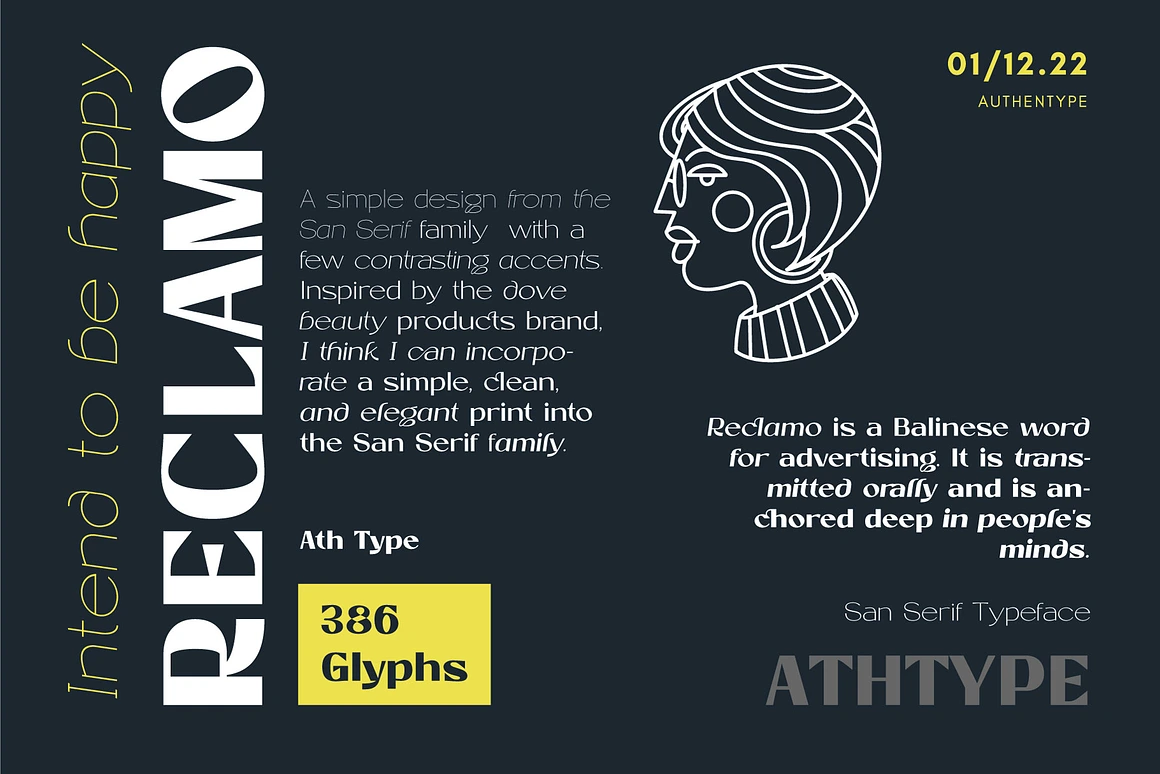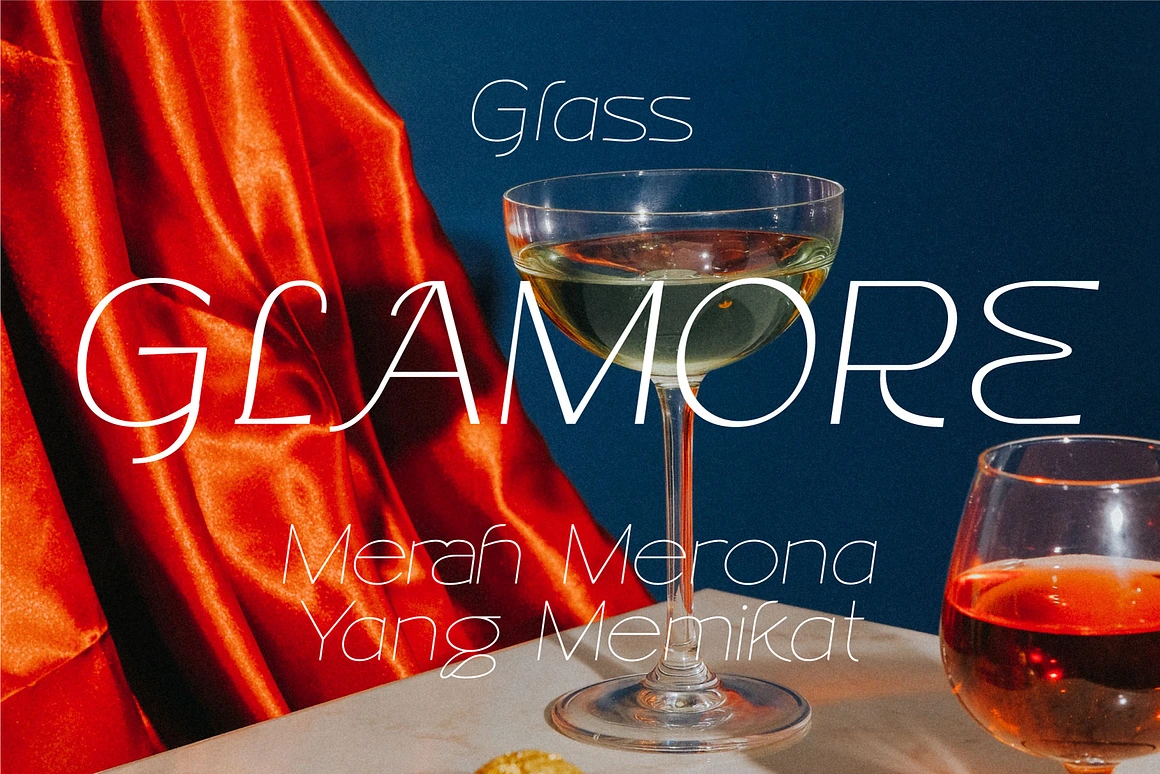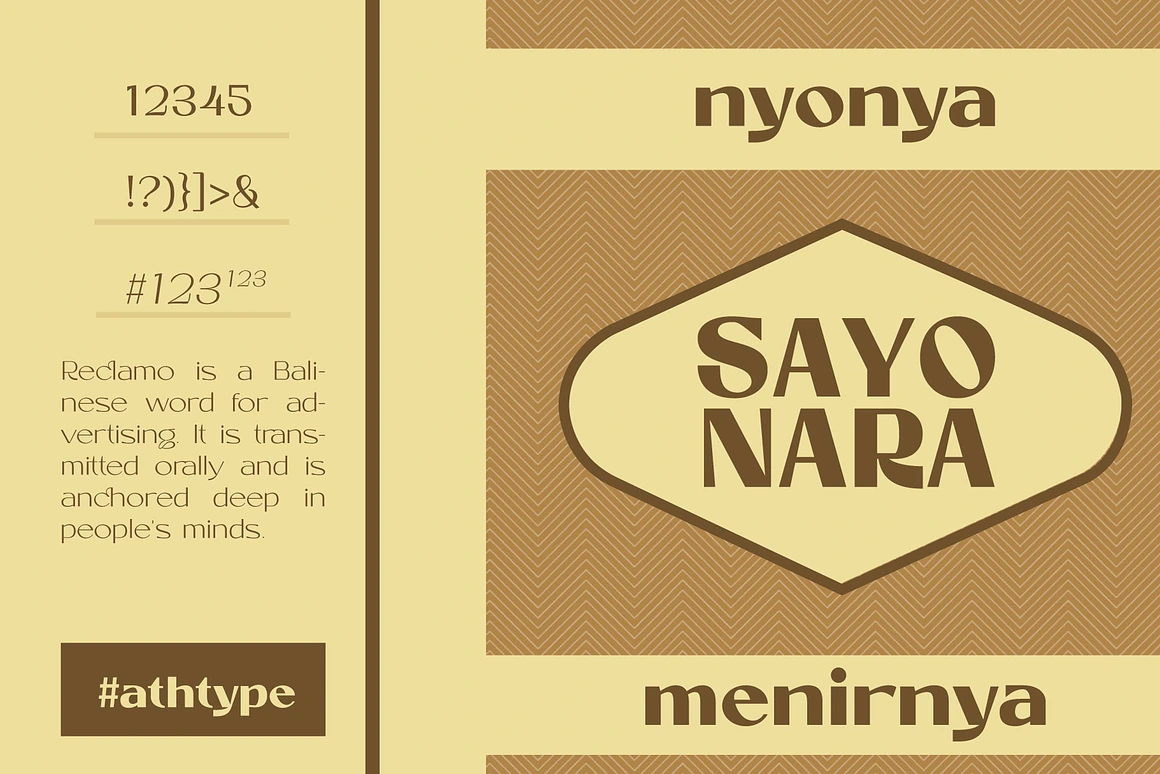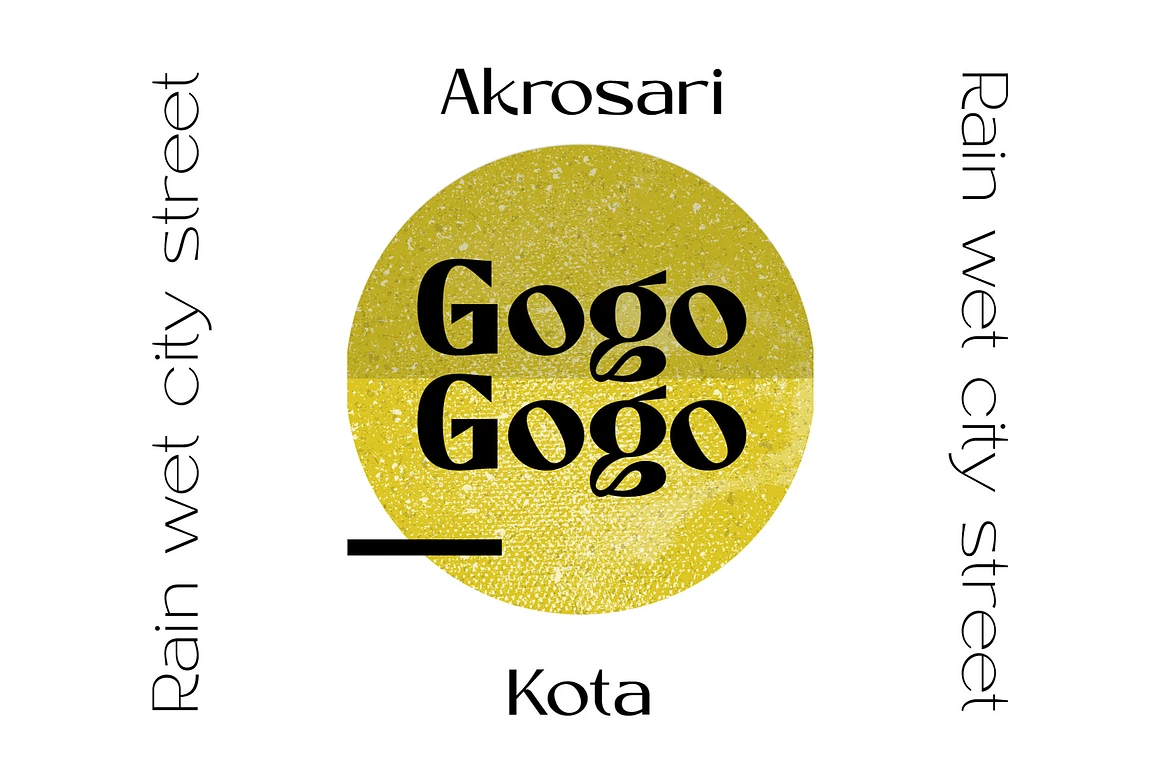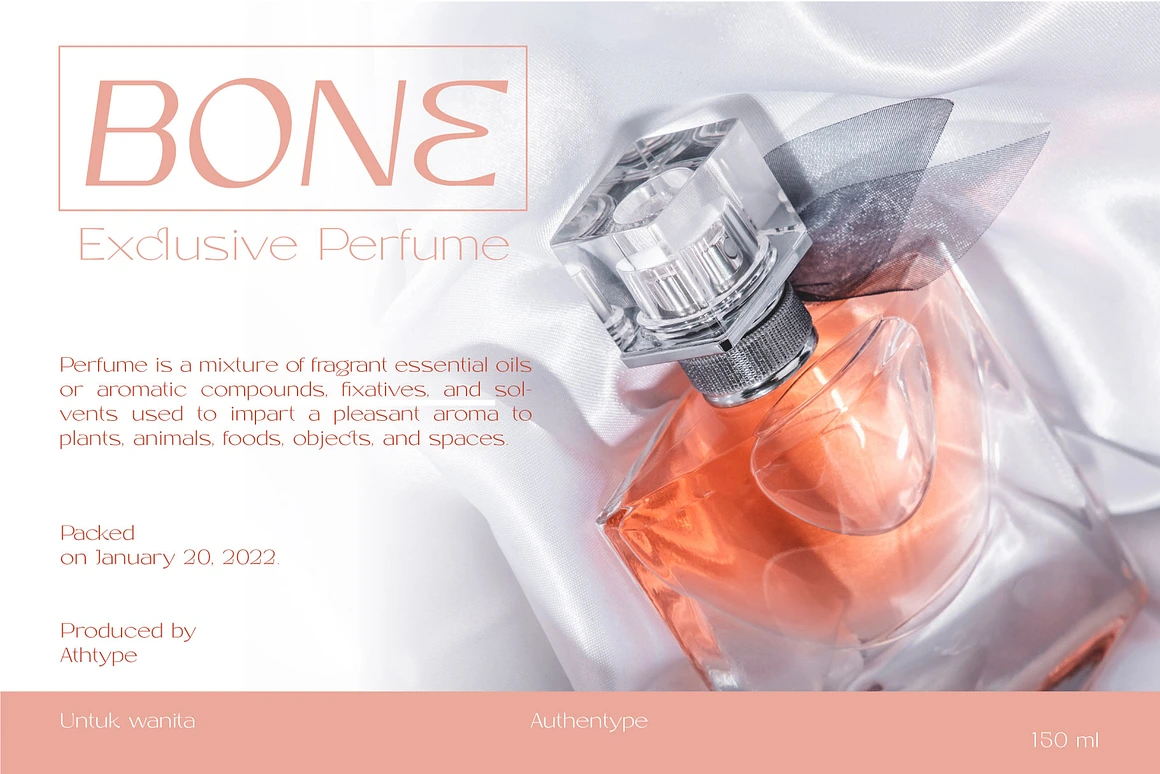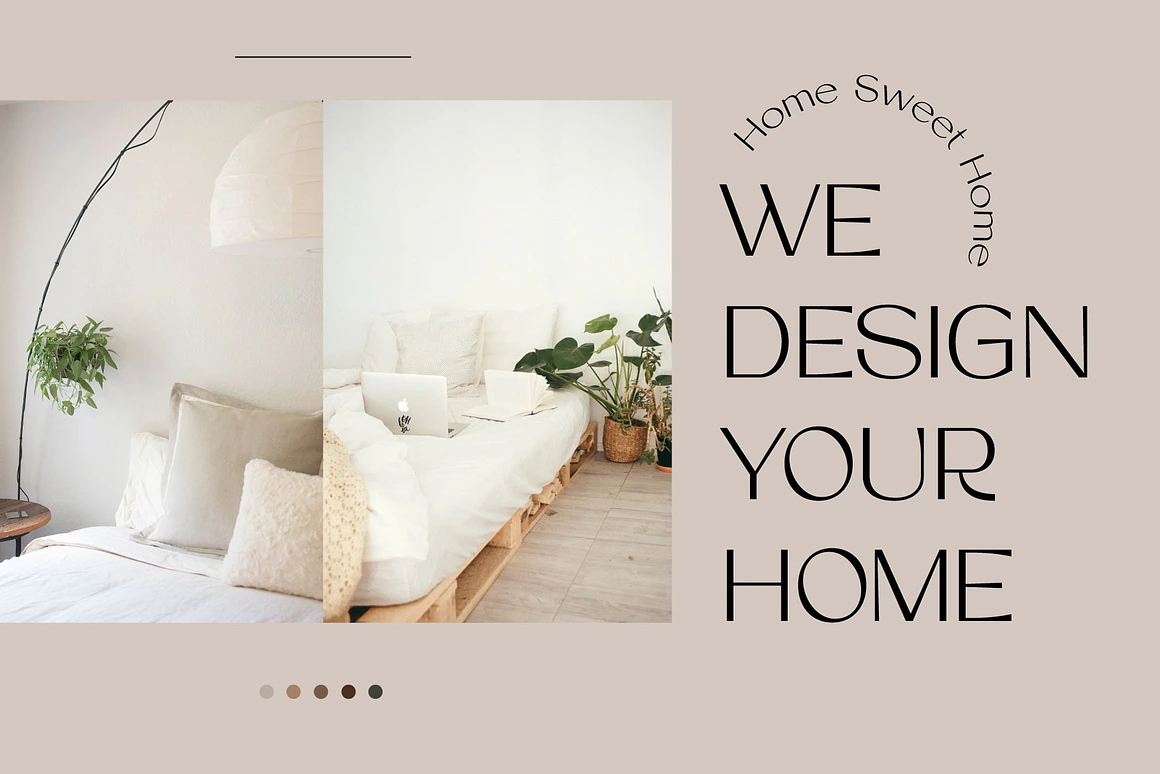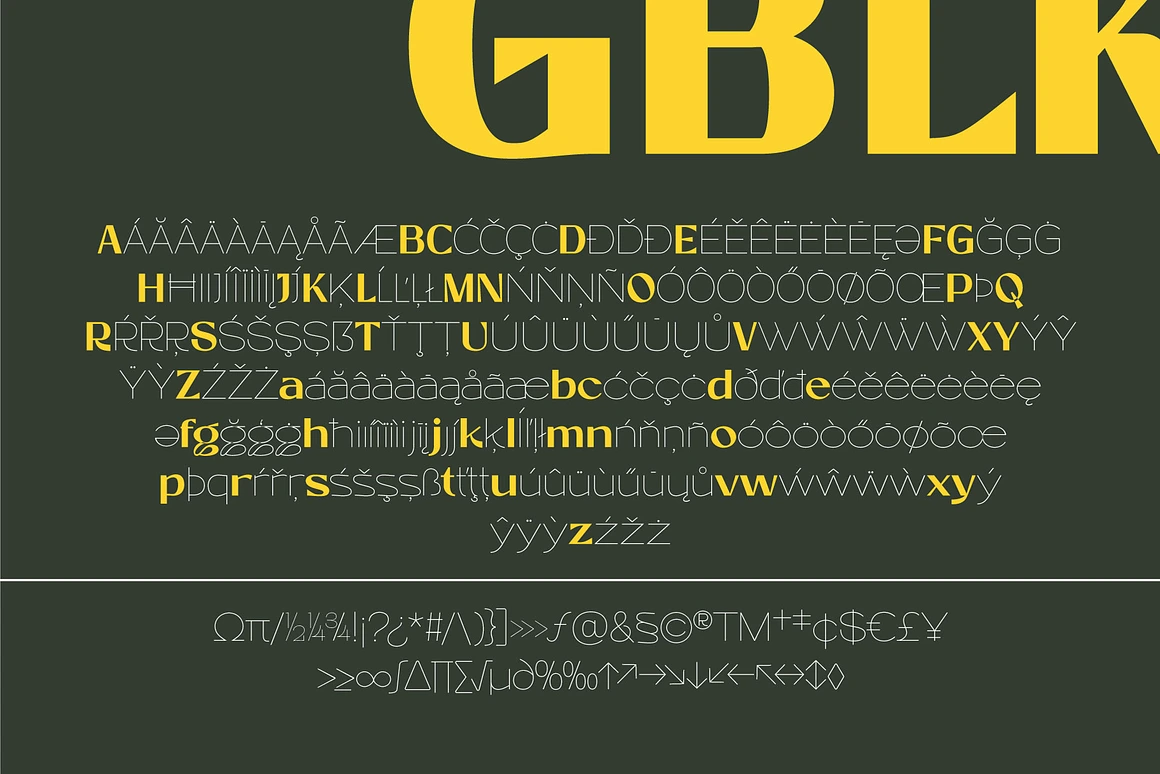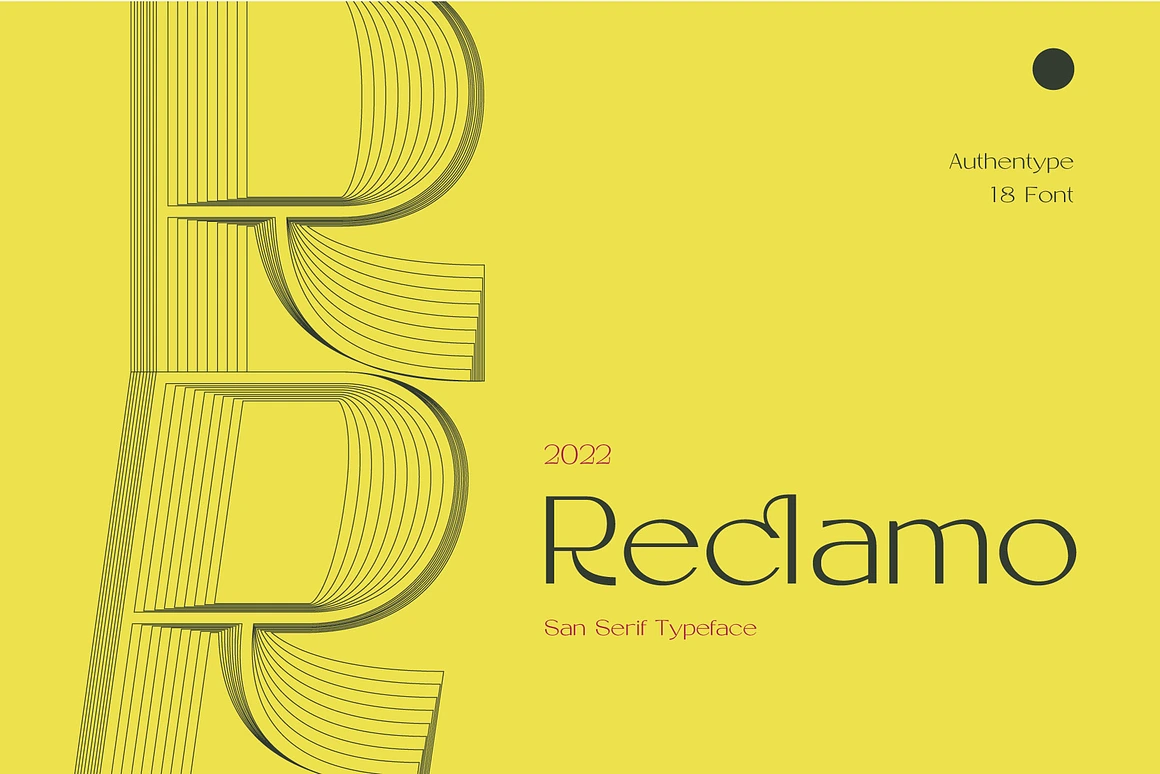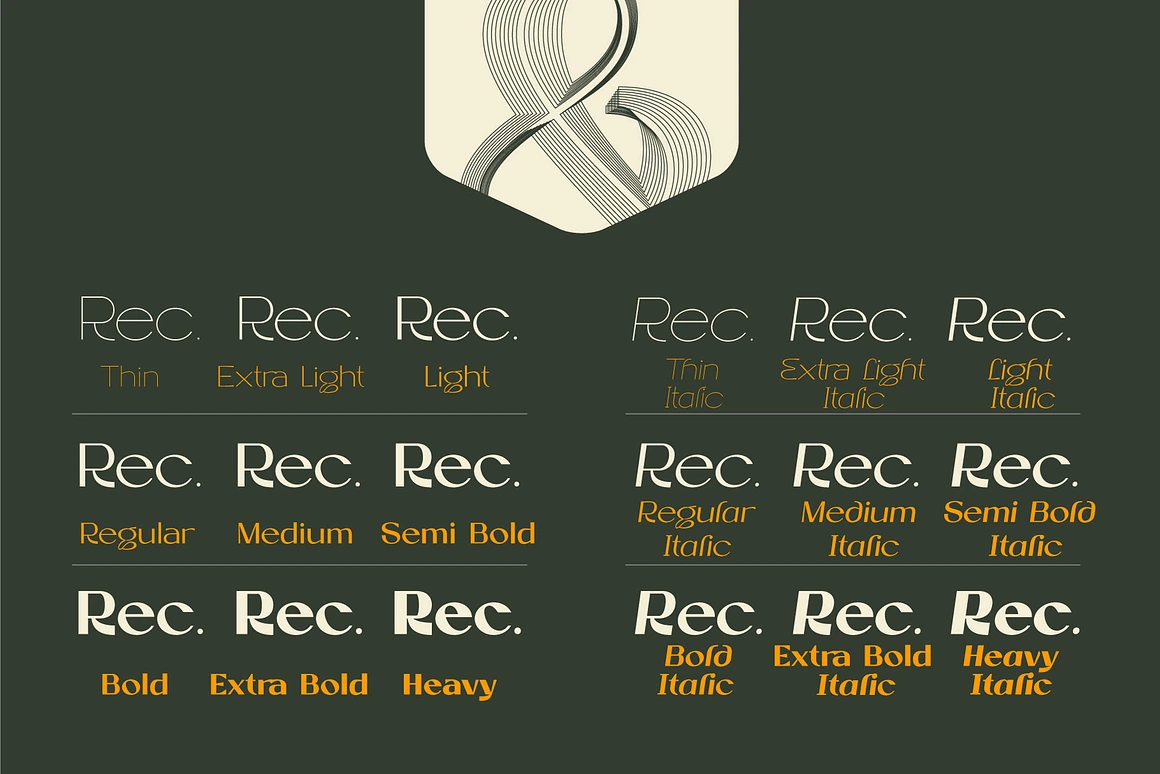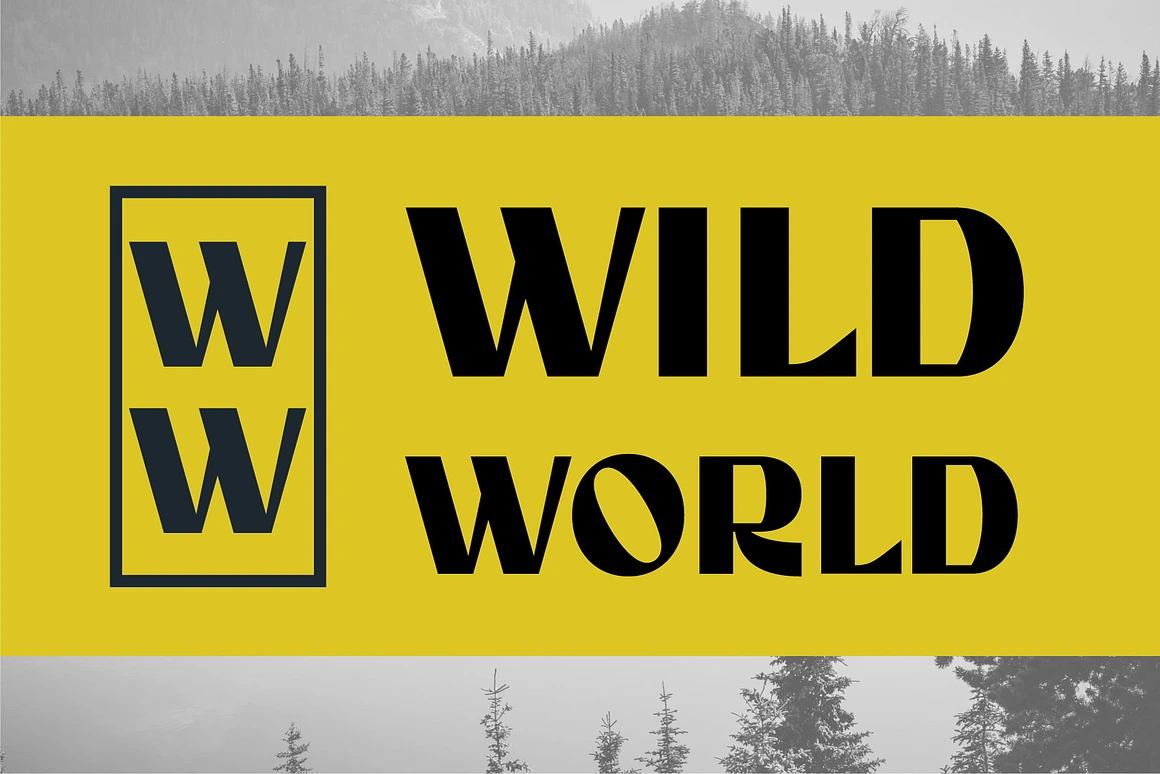
Reclamo - 18 San Serif Font
Reclamo Complete Family
Reclamo – 18 San Serif Font A simple design from the San Serif family with a few contrasting accents. Inspired by the dove beauty products brand, I think I can incorporate a simple, clean, and elegant print into the Reclamo family. Reclamo is a Balinese word for advertising. It is transmitted orally and is anchored deep in people’s minds.
Reclamo 386 Glyphs | 18 Font
Fonts include multilingual support